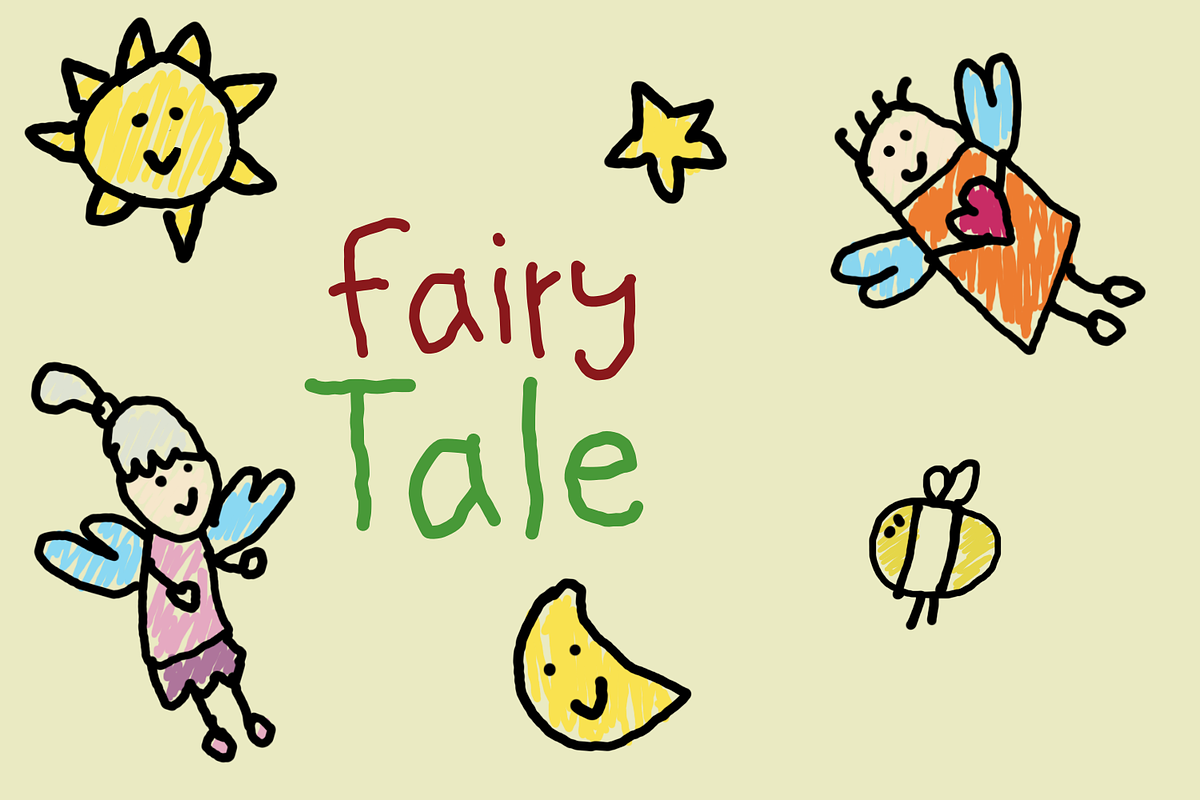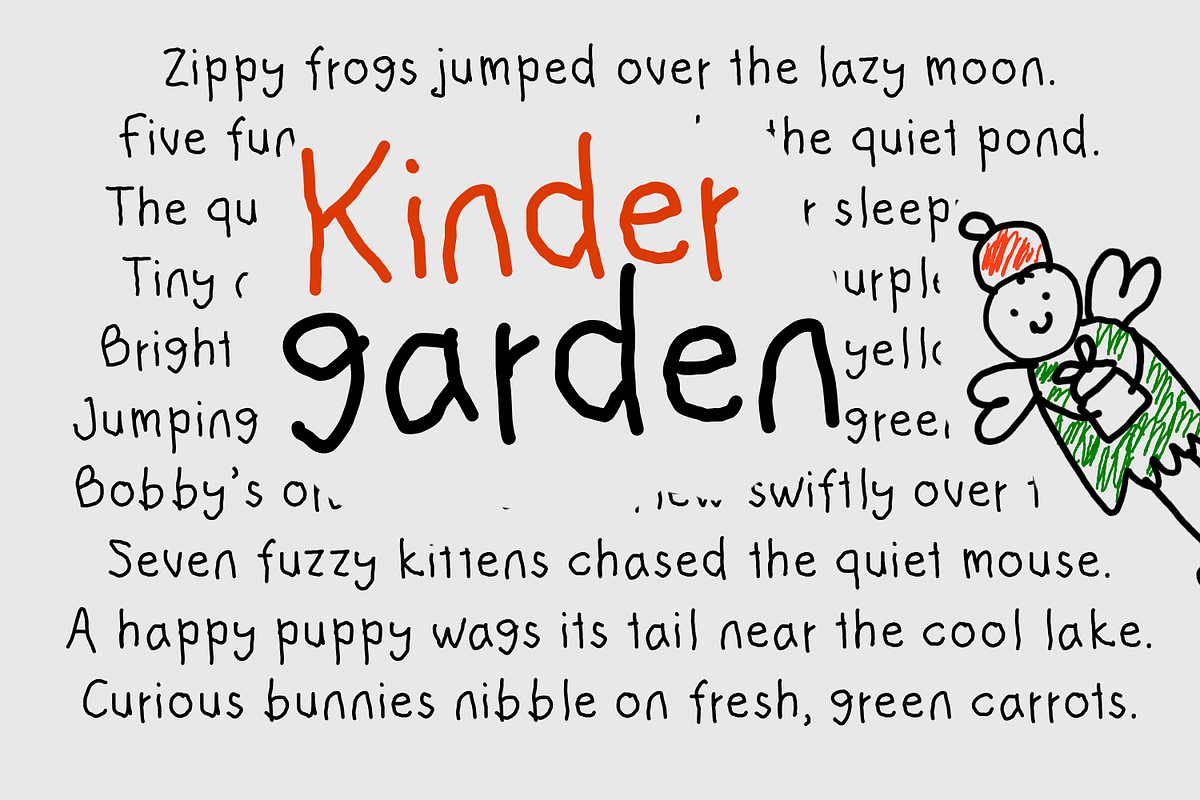
Kinder garden child handwriting
Introducing Kinder Garden, a delightful font designed to capture the whimsical charm of children's handwriting. Perfect for a variety of applications, this font is ideal for children's storybooks, educational materials, and a range of products aimed at young audiences.
With its playful yet legible design, Kinder Garden combines the authenticity of a child's writing with clarity, making it easy for young readers to engage with the text. Whether you’re creating enchanting tales, inviting classroom resources, or vibrant promotional materials for children's products, this font adds a touch of warmth and creativity to your projects.
Bring your ideas to life with Kinder Garden, where every letter tells a story!